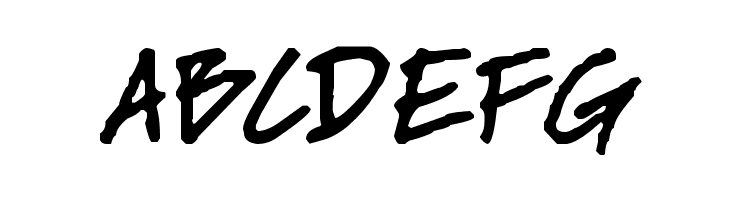
Sound of silence Font
- Font: Sound of silence
( Fonts by Press Gang Studios - Andeh Pinkard - www.pressgang-studios.com )
A bold, playful font with a comic book style and hand-drawn appearance.